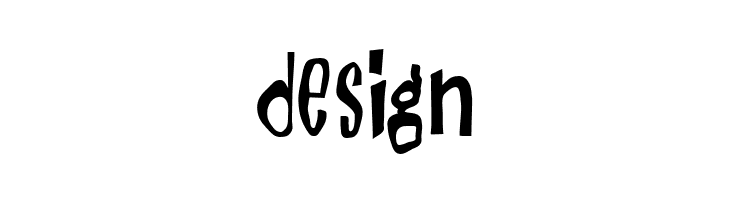
Uglier Things Leftalic Font
- Font: Uglier Things Leftalic
( Fonts by Andy Krahling - Sunwalk )
A playful, handwritten font with irregular, organic letterforms and a whimsical style.